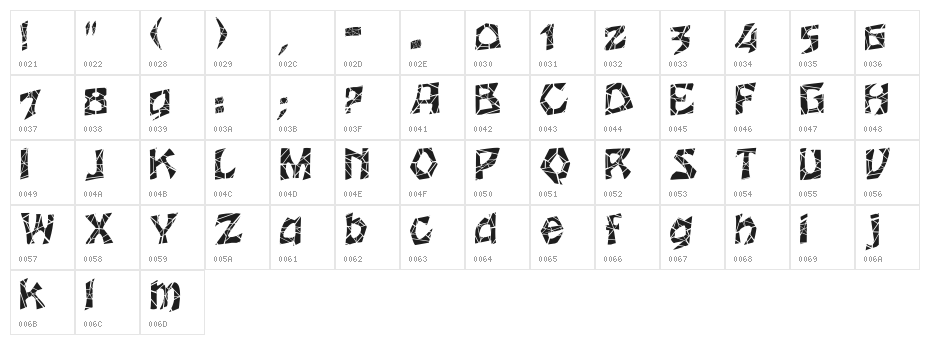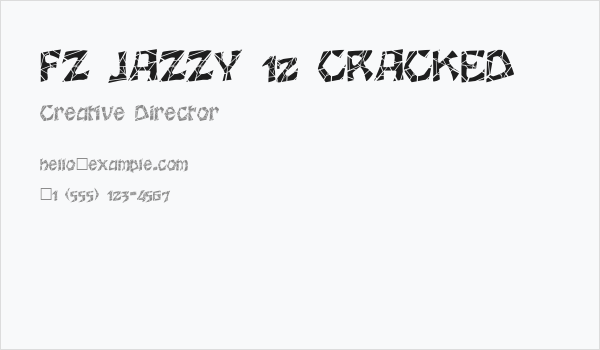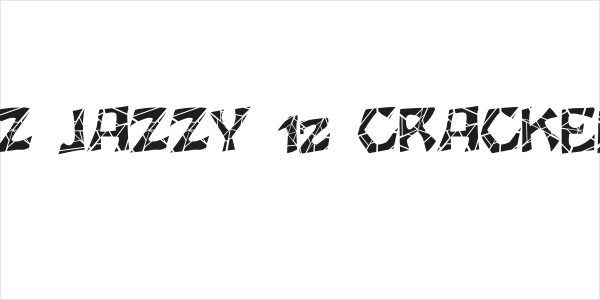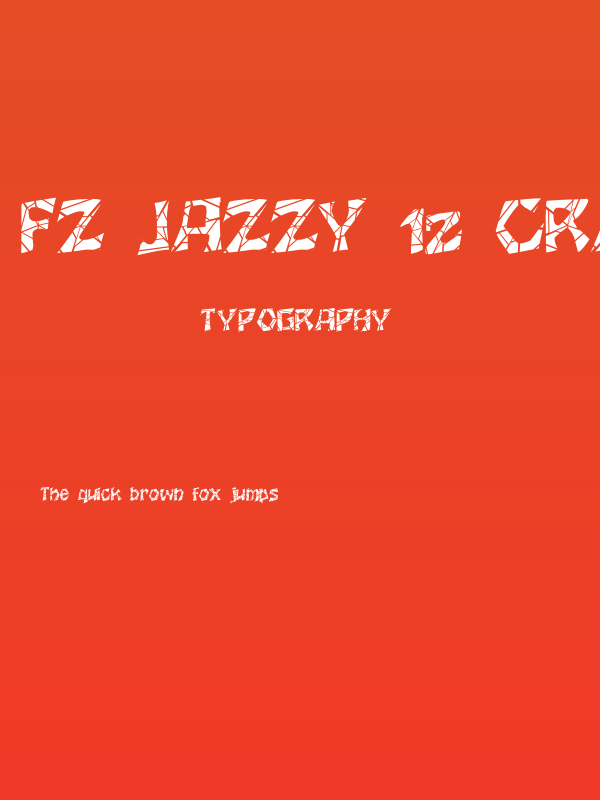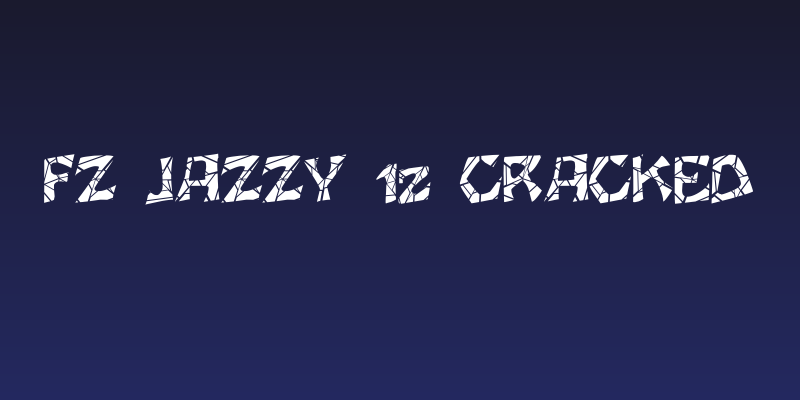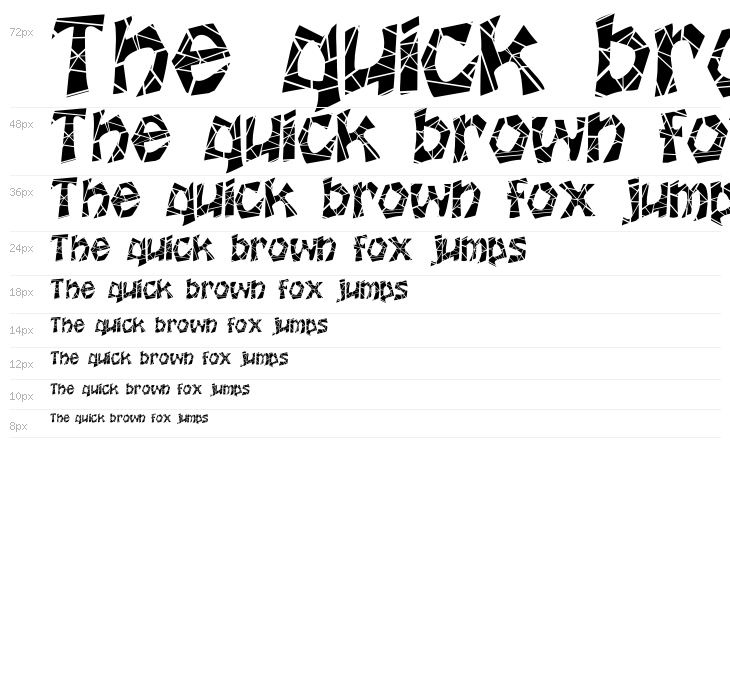
FZ JAZZY 12 CRACKED Font
FZ JAZZY 12 CRACKED Description
This font features a unique, cracked design that gives each character a fragmented appearance, reminiscent of shattered glass. The bold, angular shapes create a sense of movement and energy, making it highly suitable for attention-grabbing designs. The uppercase and lowercase letters maintain a consistent style, with jagged edges and irregular patterns that contribute to its distinctive look. Numbers and special characters are equally stylized, ensuring a cohesive visual theme across all elements. The font's dramatic and artistic flair makes it ideal for projects that require a bold statement.
| Overall Style | Modern, Artistic |
| Proposed Projects | Ideal for album covers, posters, branding for edgy or modern products, and any design needing a bold, artistic touch. |